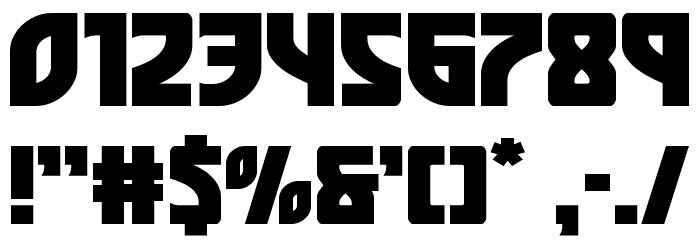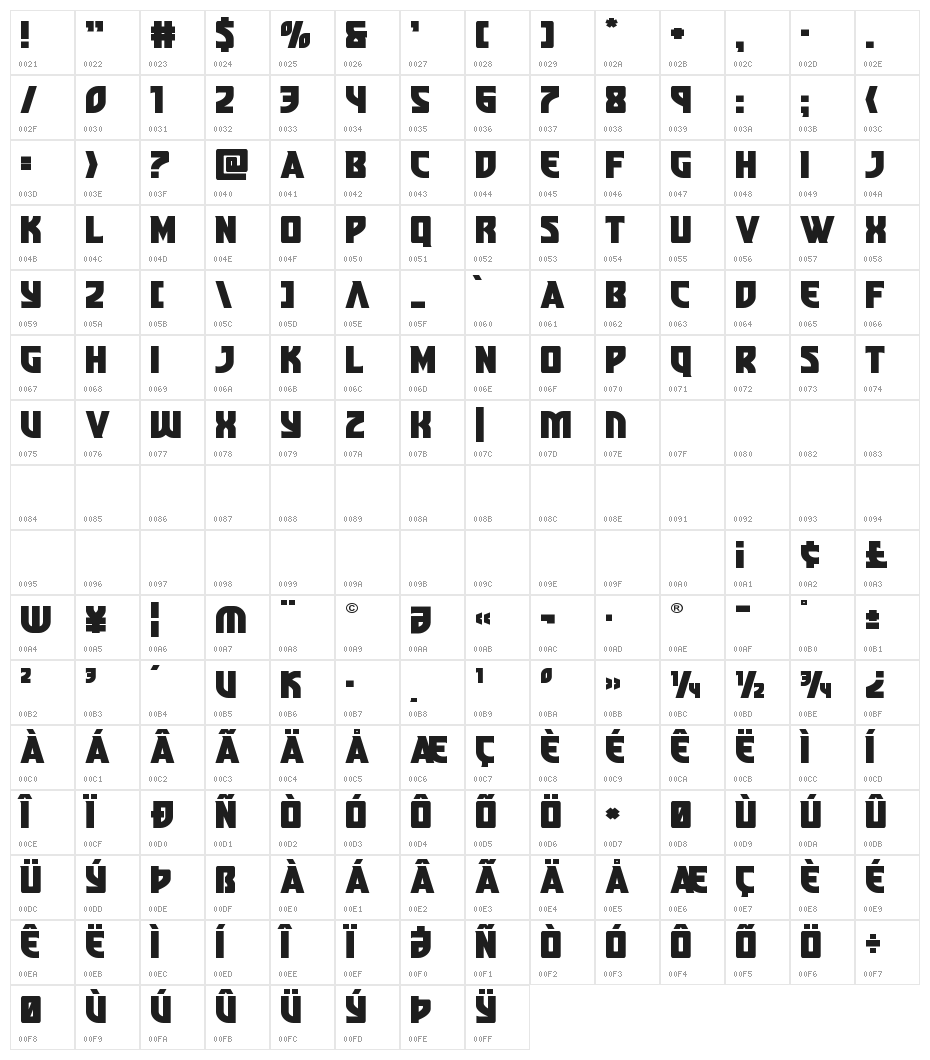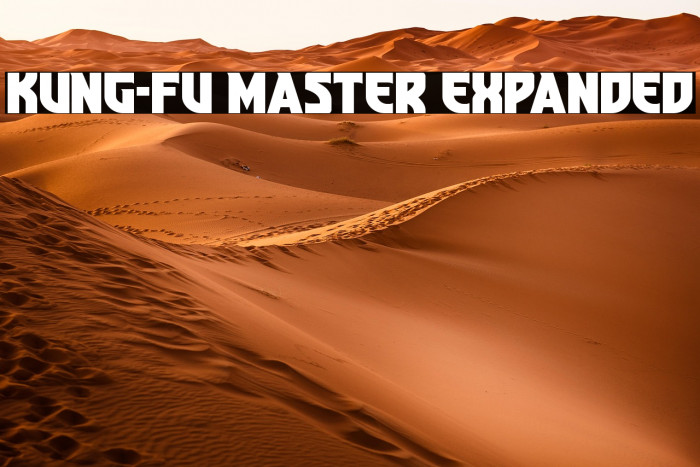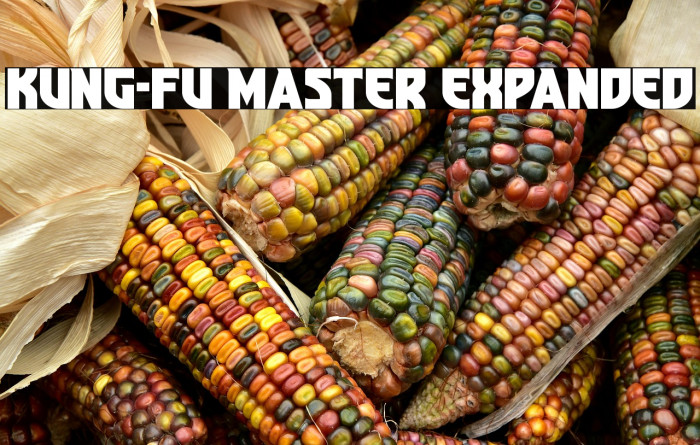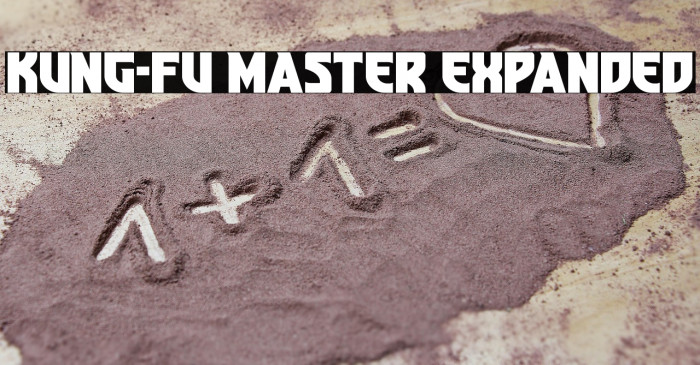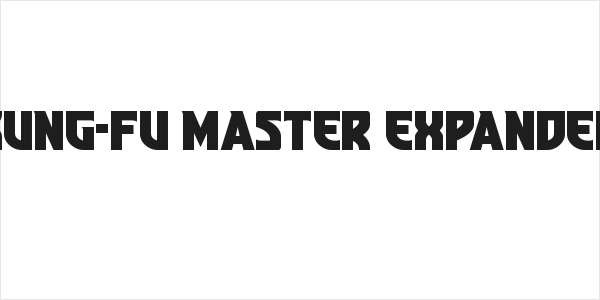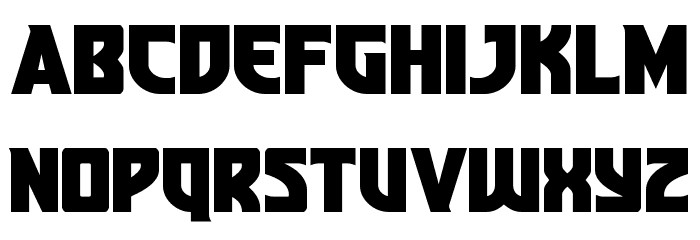
Kung-Fu Master Expanded Font
Kung-Fu Master Expanded Description
This font features a bold and striking design with a distinctly geometric and angular style. The characters are wide and have a strong presence, making them ideal for attention-grabbing headlines or titles. The uppercase letters are particularly prominent, with sharp edges and a blocky appearance that conveys a sense of strength and stability. The numbers and special characters maintain this bold aesthetic, ensuring consistency across all text elements. The font's expanded width allows for a commanding visual impact, making it suitable for projects that require a bold statement.